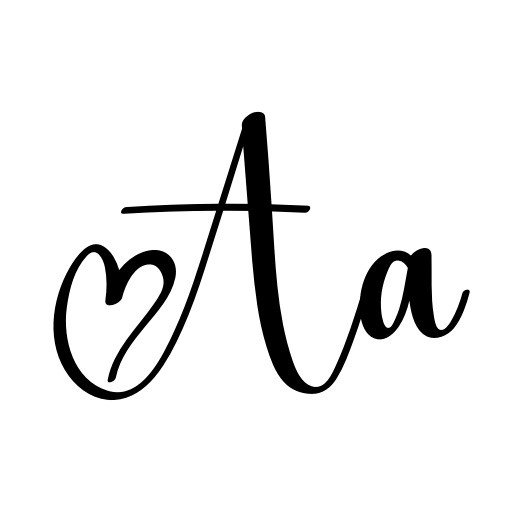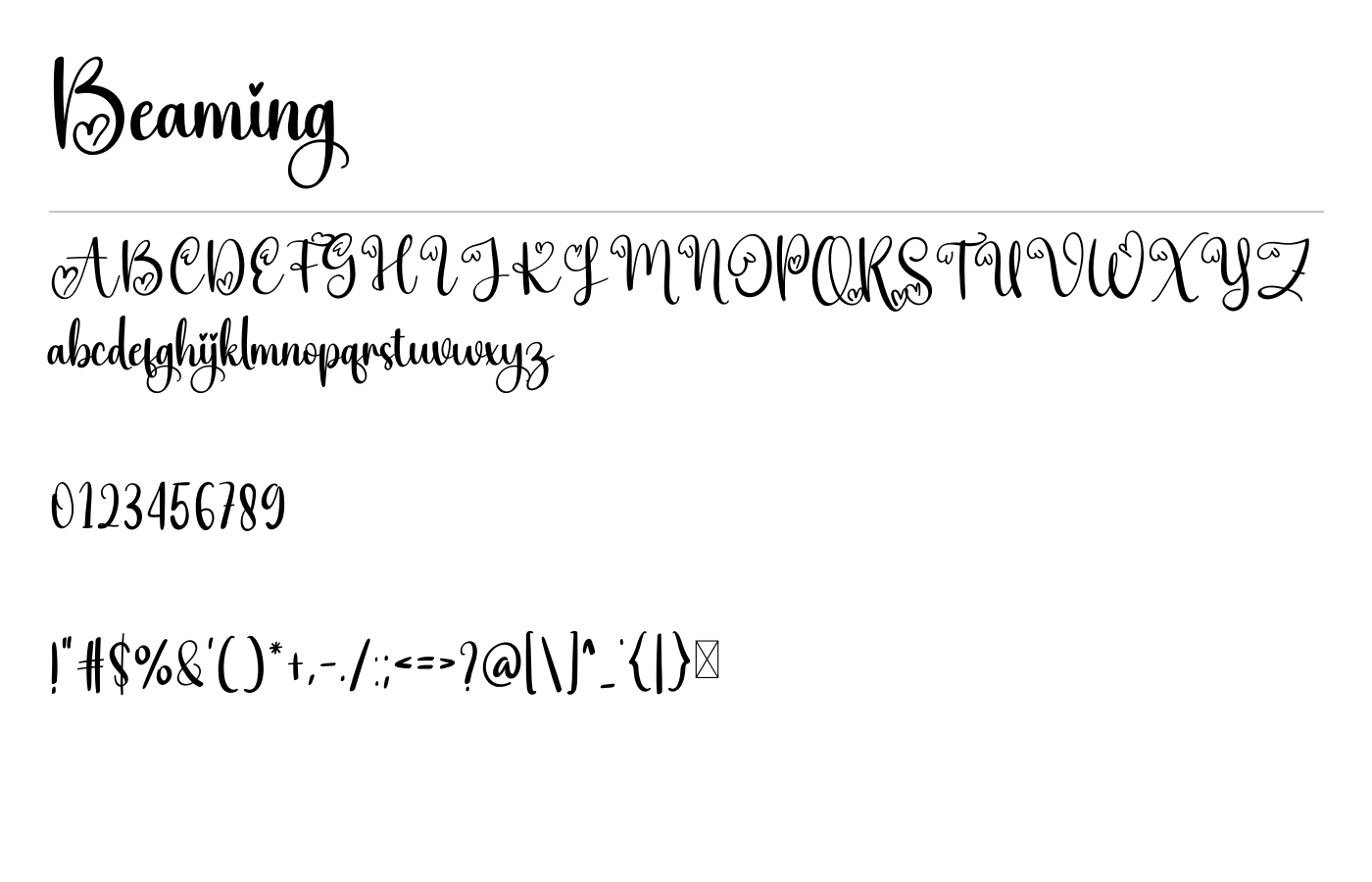
Beaming Font is a playful and elegant script typeface with whimsical heart-shaped flourishes that bring a charming, friendly vibe to any design. Its smooth, flowing strokes and delicate details make it perfect for invitations, greeting cards, logos, and branding that need a touch of romance or personality. This font shines in decorative headlines and creative projects where a warm, handwritten feel is desired.
Beaming Font
About Beaming Font